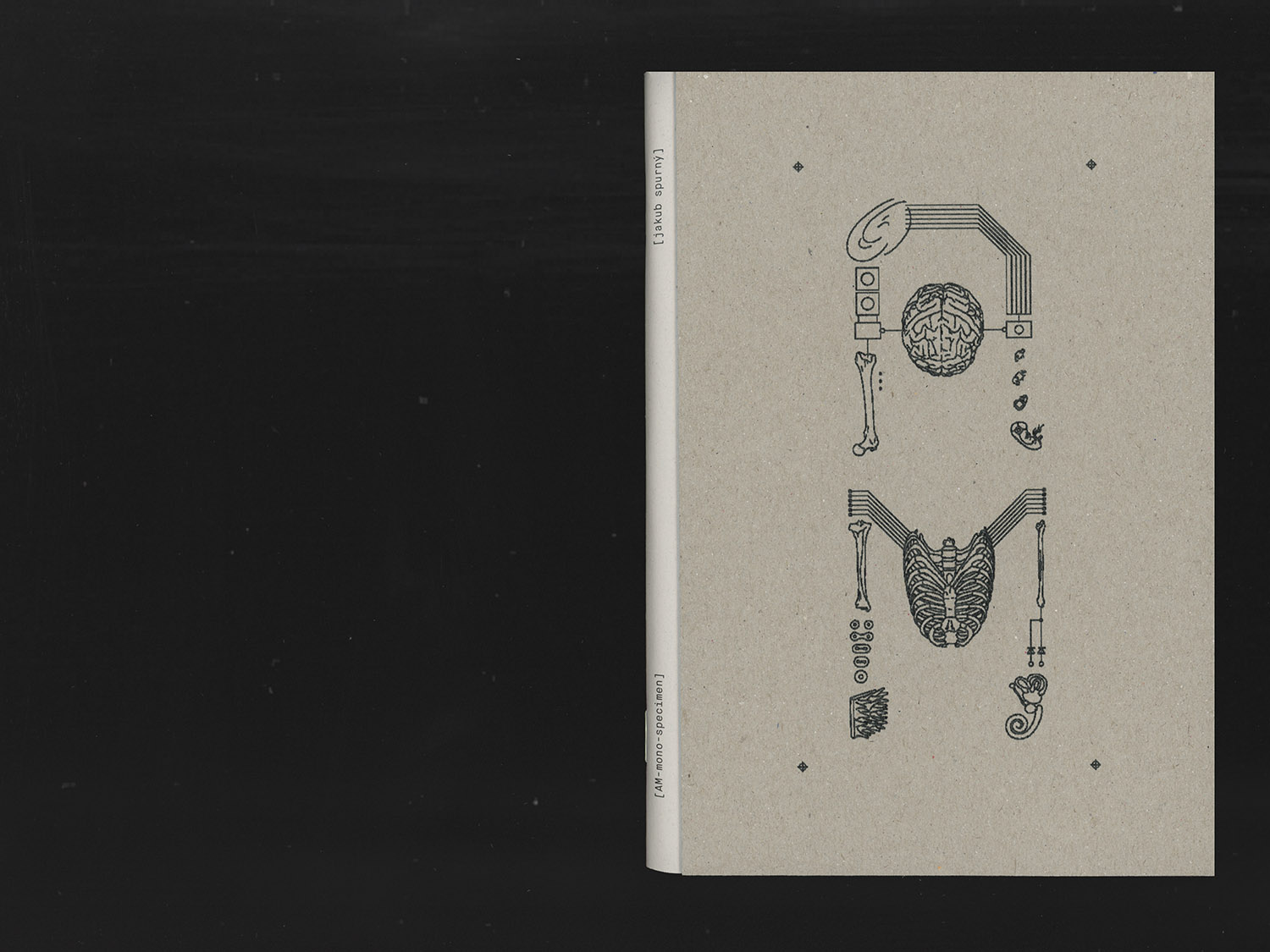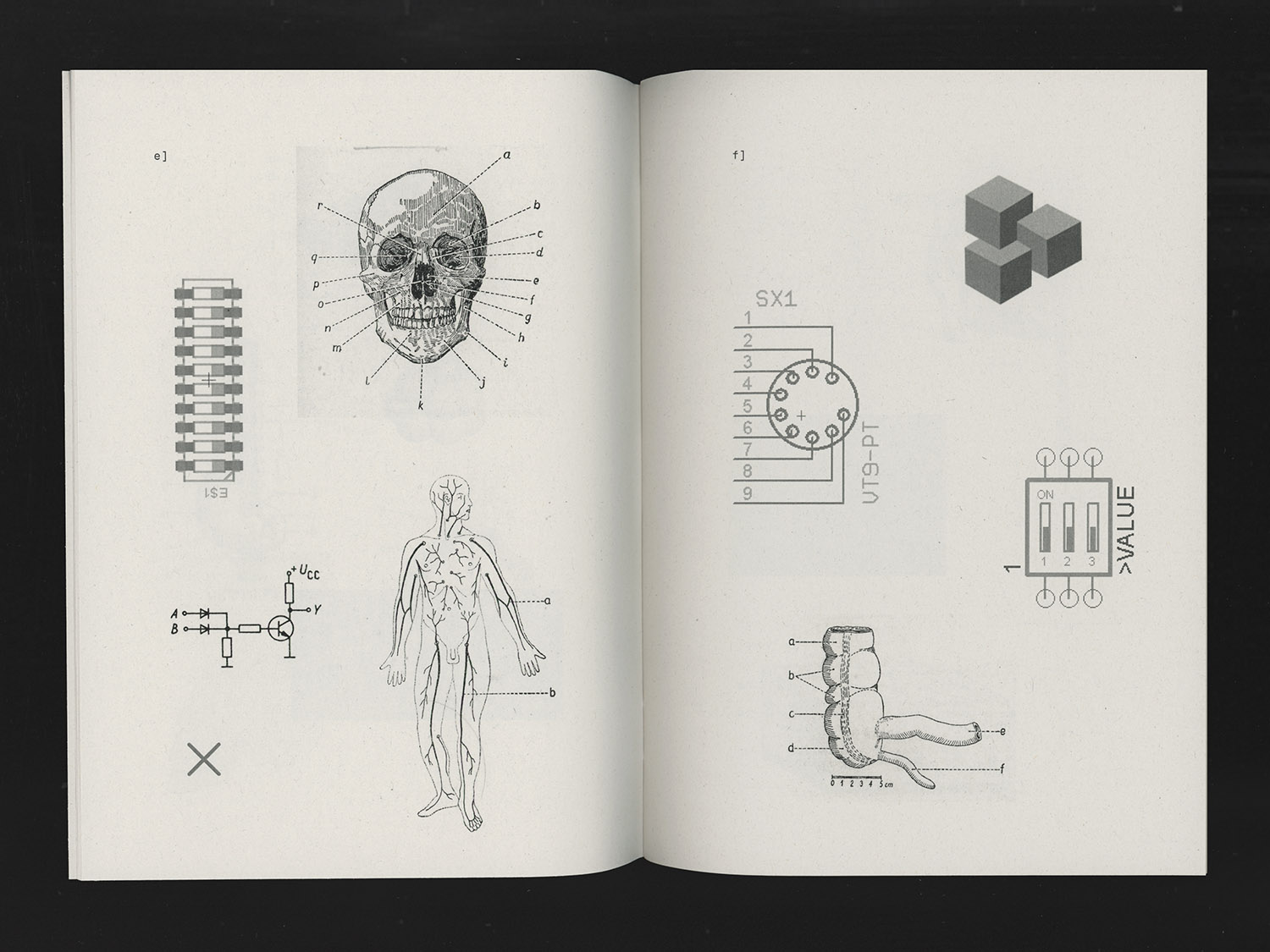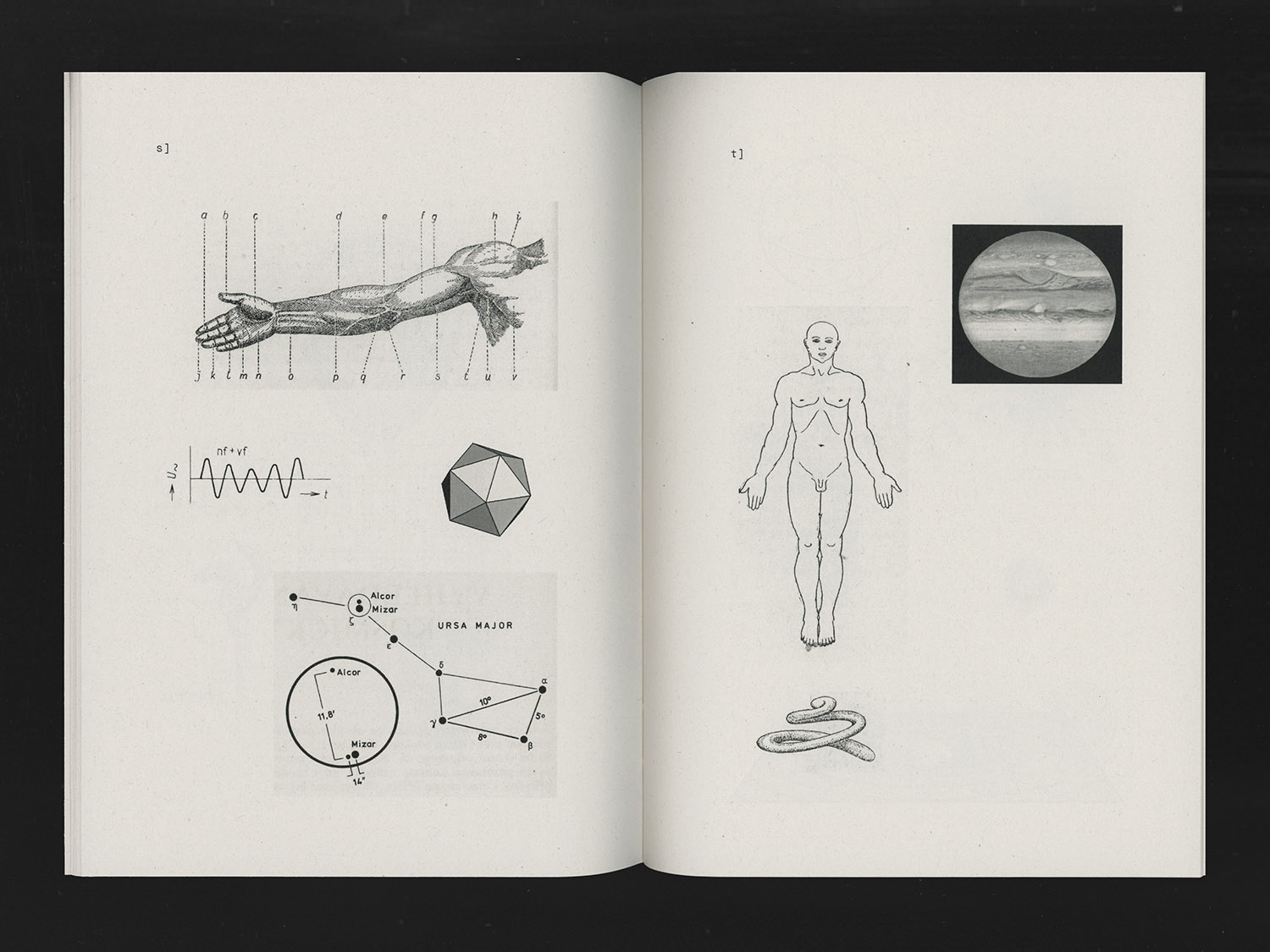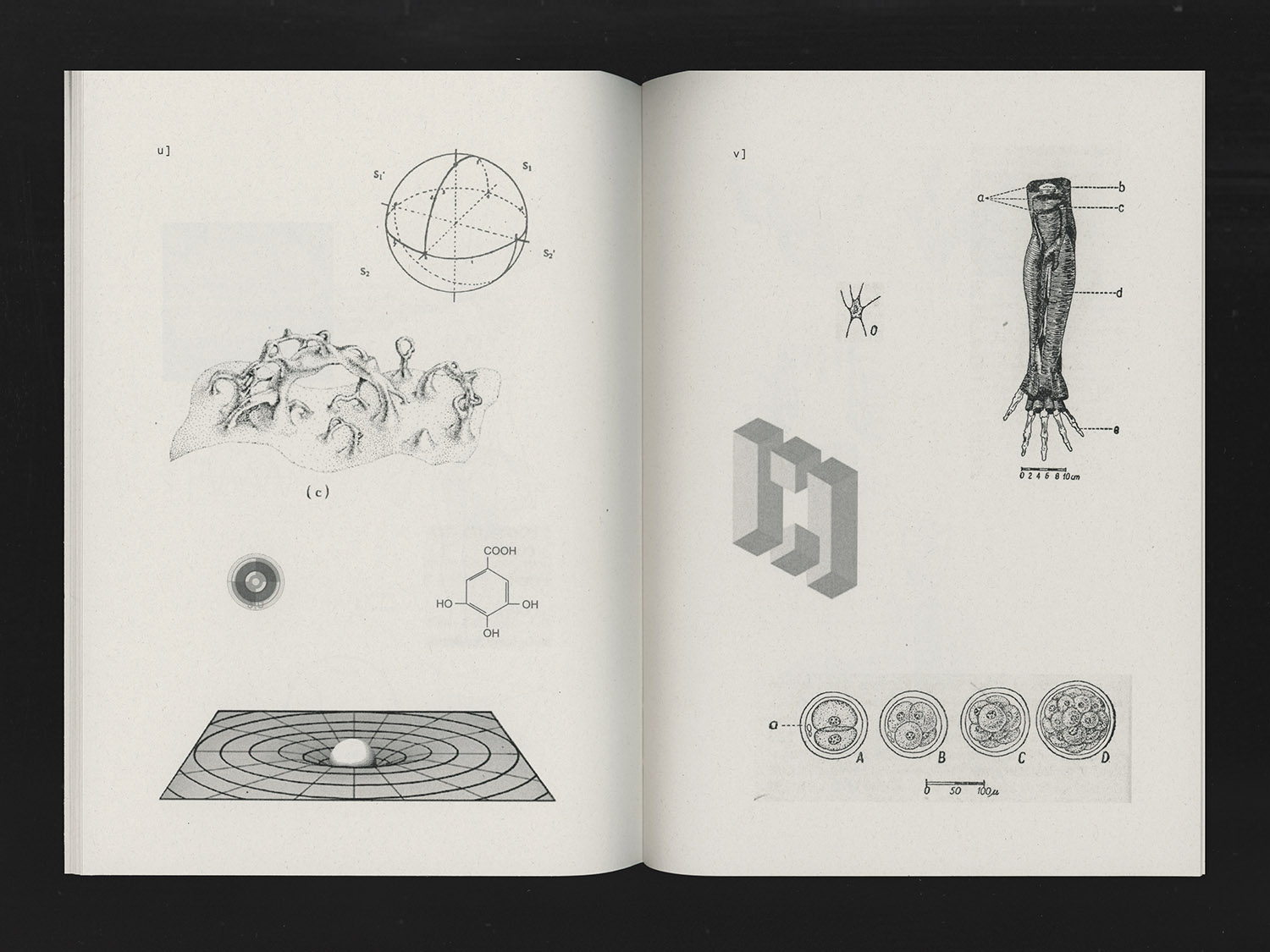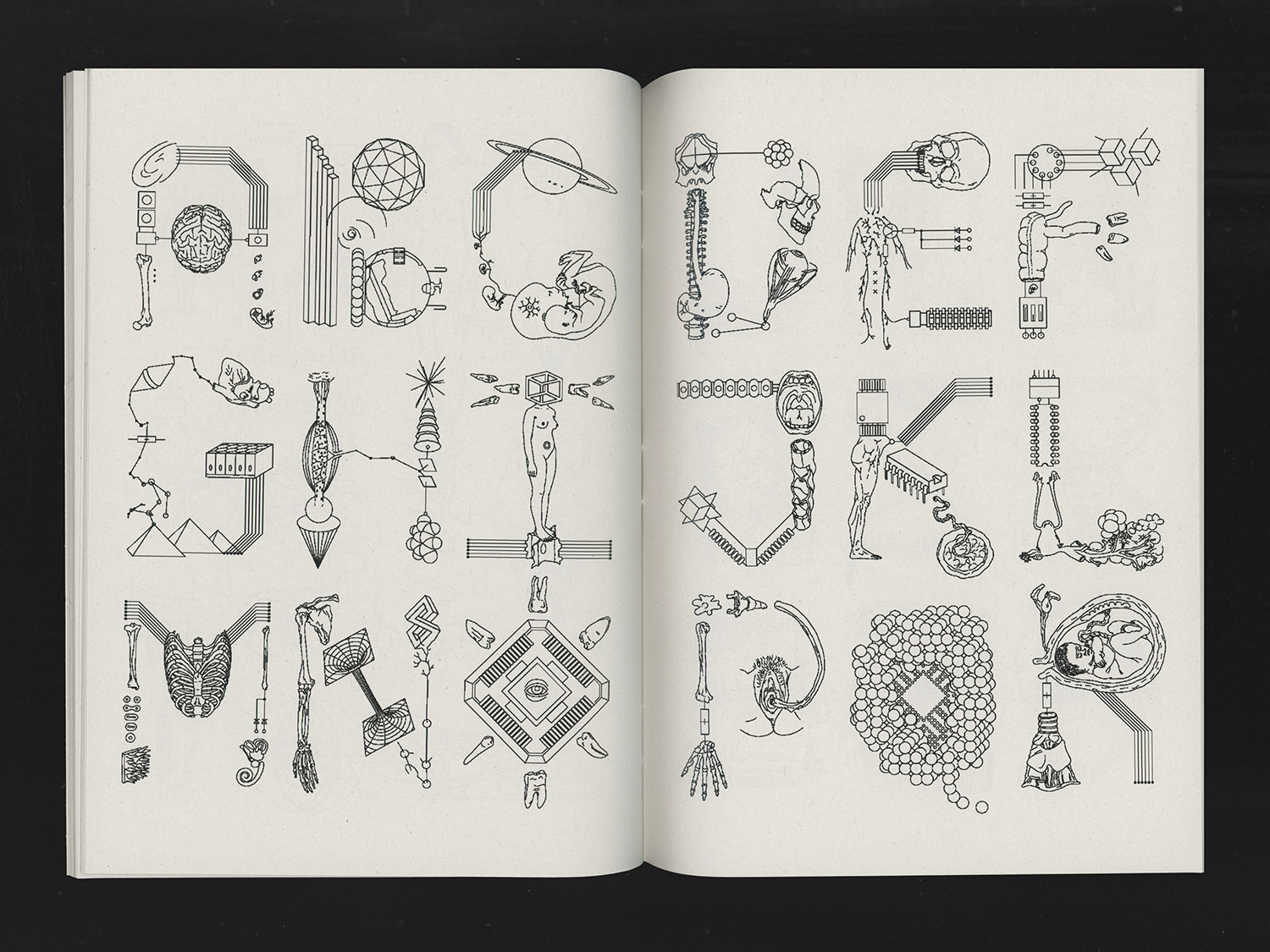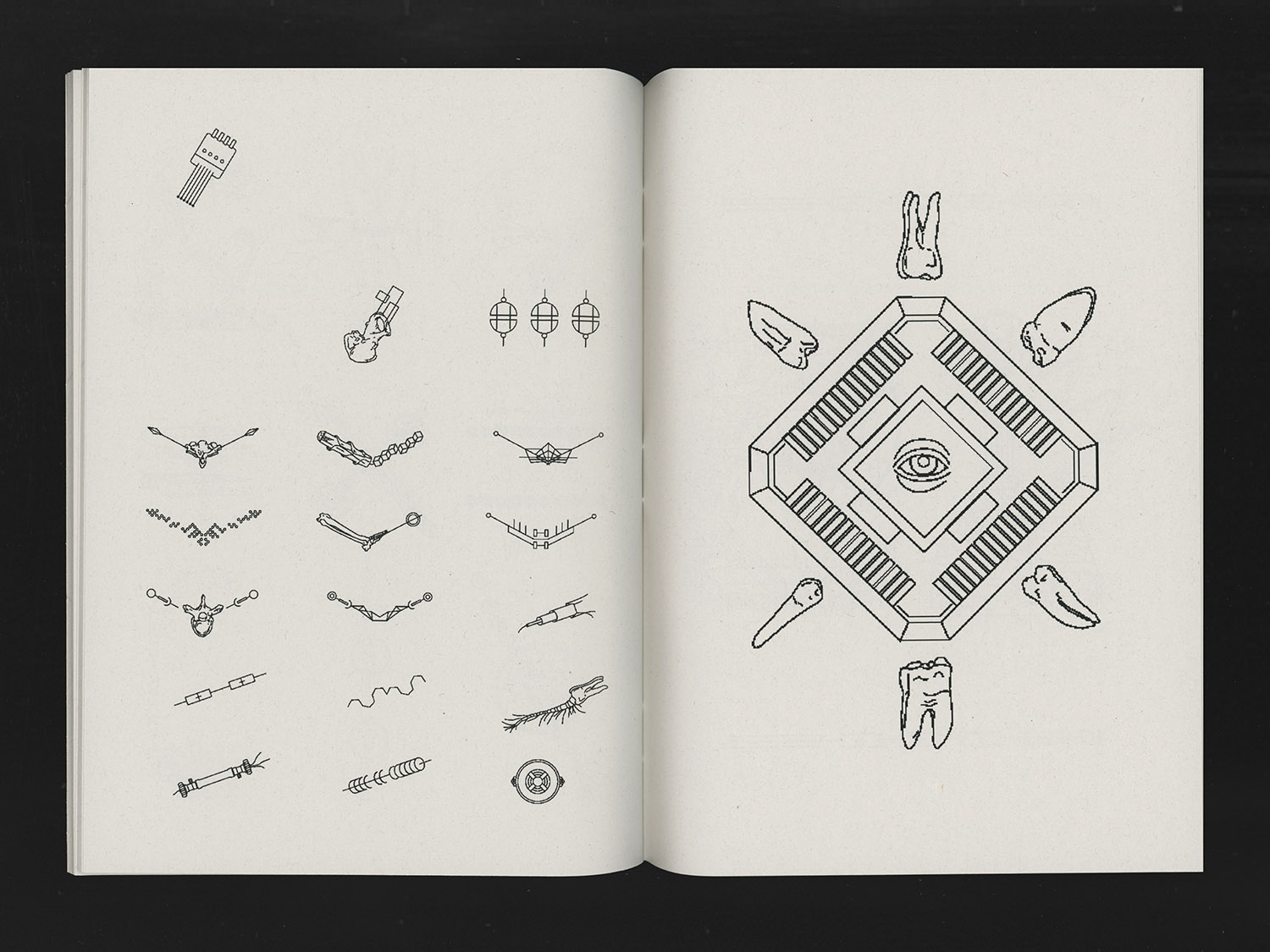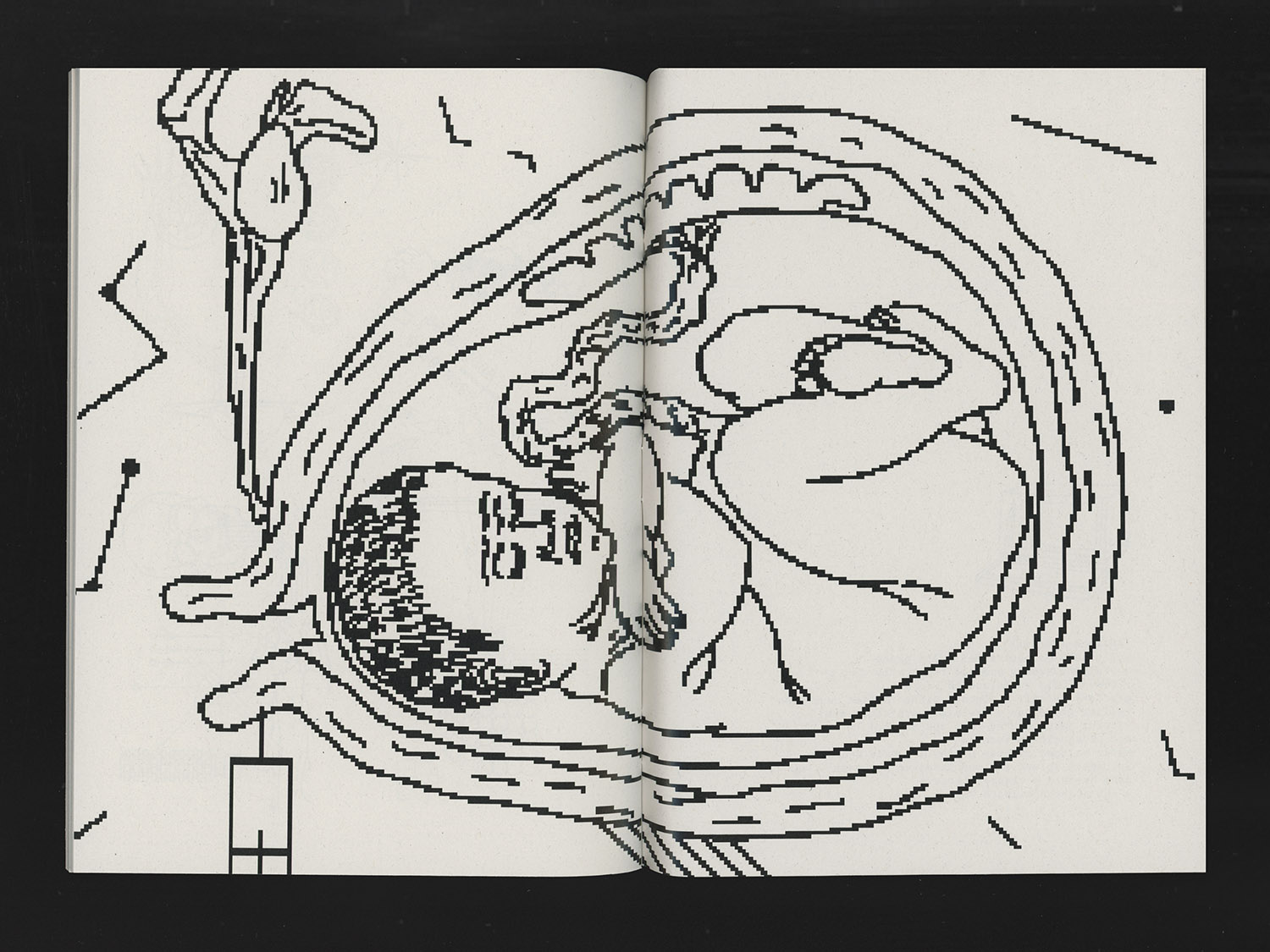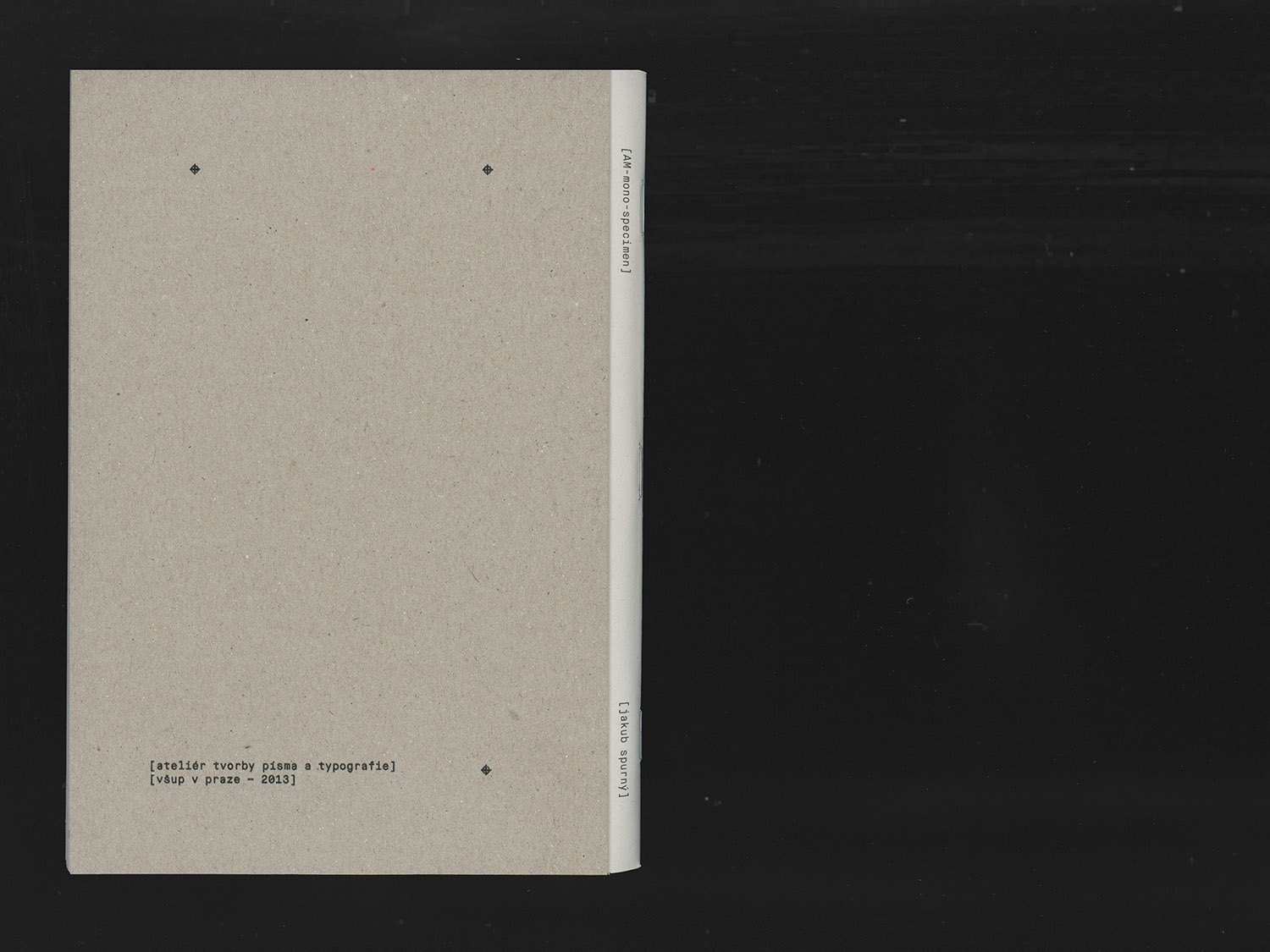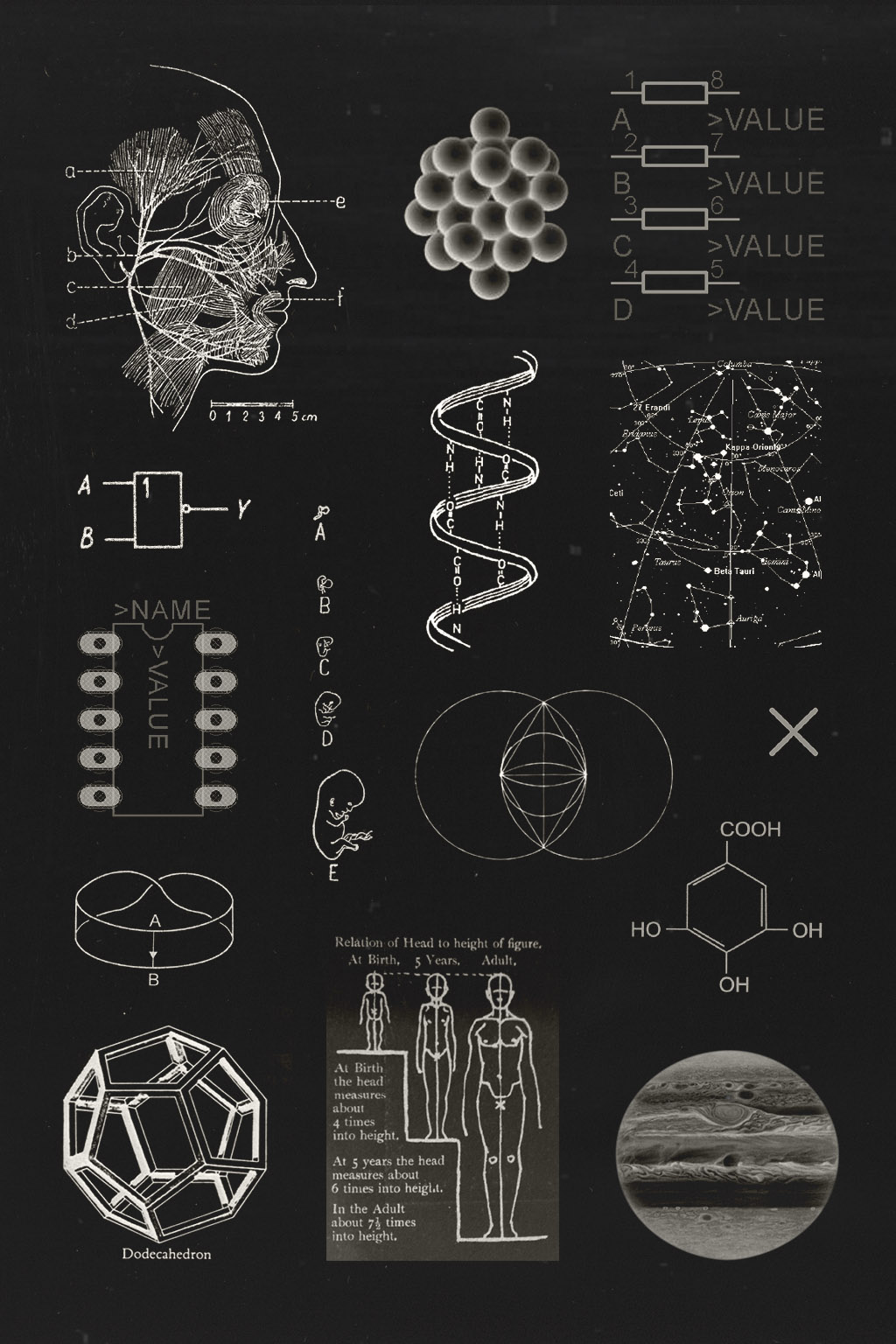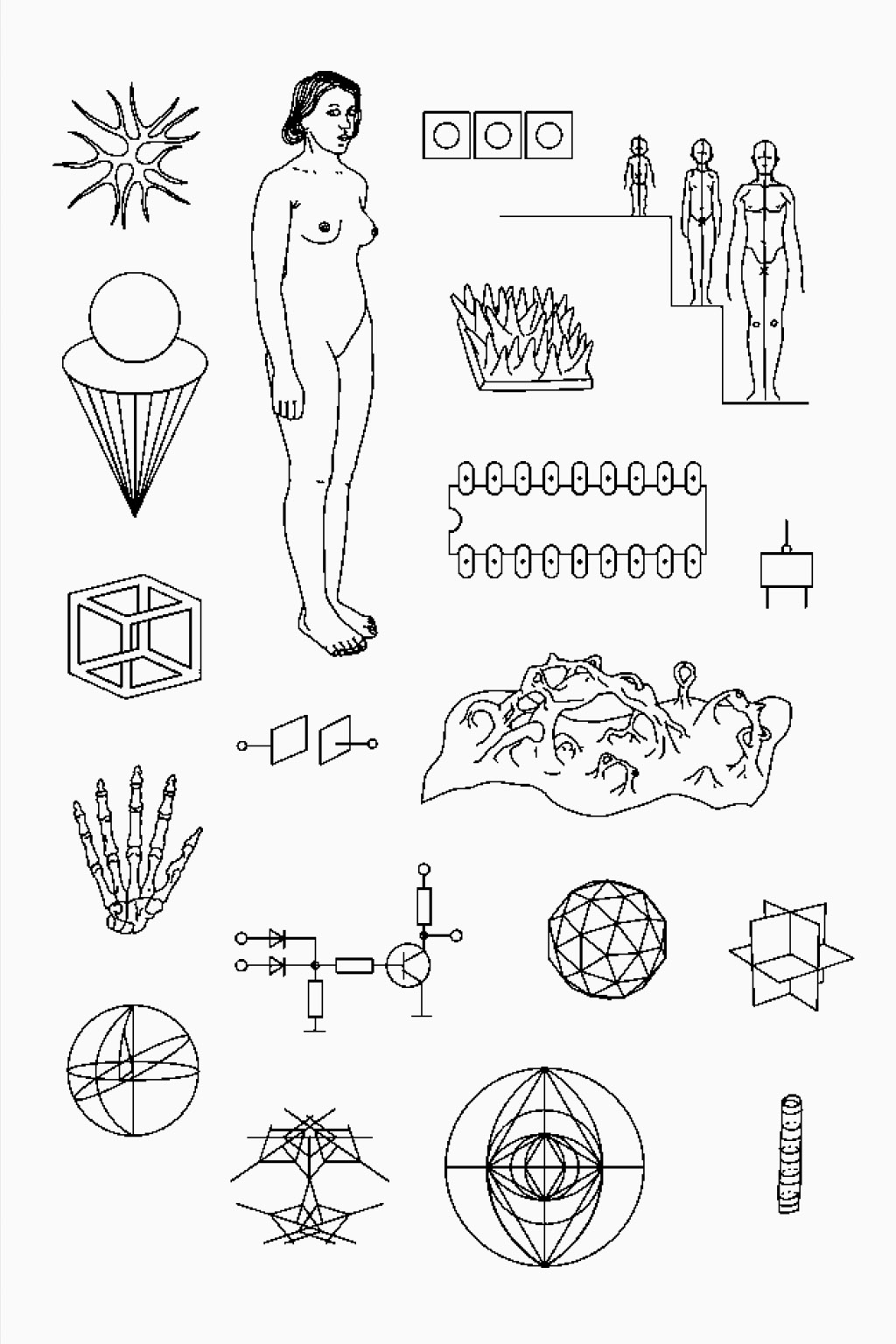
BC 3018
Initials tend to be associated with gilded medieval illuminated manuscripts as meaningful echoes of the texts that follow. But they can also go their own way. BC 3018 is an initial alphabet which draws on traditional typographic discipline regardless of whether it has a place and meaning in today’s digital age.
“Dangerous Visions” is the famous and award-winning anthology of controversial sci-fi stories edited by the American author Harlan Ellison and published in 1967. With its inclination to experimentation, surrealism, and sexual topics, it became the manifesto of the direction of the New Wave and changed the way we look at all of science fiction. The ambitious third volume, half of whose nearly one hundred authors have already passed away, has waited since 1979 to be published and has become a vision unto itself.
Its originally-intended use and inspiration comes from the legendary sci-fi anthology “Dangerous Visions,” edited by Harlan Ellison. The dystopias in the book gave the typeface direction, in which letters emerge from printed links of intertwined anatomical drawings, technical features, astral objects or galactic bodies. Visions of a dark future have taken shape in tiny abstract stories with elements of irrationality, arbitrariness and malicious stubbornness playing out in every letter. The only direct reference, the letter “O,” looking out like a god over the entire character set, symbolizes the “AM” supercomputer which takes over the world in Ellison’s famous story “I Have No Mouth, and I Must Scream.”
A selection of source images used. Scientific drawings from atoms to anatomy, and occultism to wormholes. A panopticon of parasitology, phytochemistry, artificial intelligence and mechanoluminescence. The majority comes from books published before “Dangerous Visions.”
The sources of these originally sober and innocuous scientific drawings come from a wide variety of books, from “Anatomy for Assistant Medical Staff and Health and Social Workers,” to the “Ritual for the Evocation unto Visible Appearance of the Great Spirit Taphthartharath,” and its thematic inconsistency reflects the complexity of those skeptical visions. This pseudo-typographic cumulation of shapes under the influence of science fiction topics gave rise to a typeface whose use is a journey into the unknown. Its disparate shapes with bones, embryos or planetary rings deviating from the baseline arise in resignation to the original purpose of its solitary usage.
The creation of this initial alphabet began as a semester project in 2013 in the Studio of Typography at the UMPRUM Academy in Prague. The typeface’s name is a leap into the future, a celebration of the 1000th anniversary of its release and at the same time a play on words on the name of the type foundry referring to a negative year, possibly to an alternate history.
BC 3018 contains a complete diacritic set in four variants, in addition to the full versal set, numbers, punctuation, currency and other symbols. With the complexity of its thousand-point pixel character, the alphabet is on the edge of what is technically possible for fonts and on the edge of possibilities for initial typefaces.